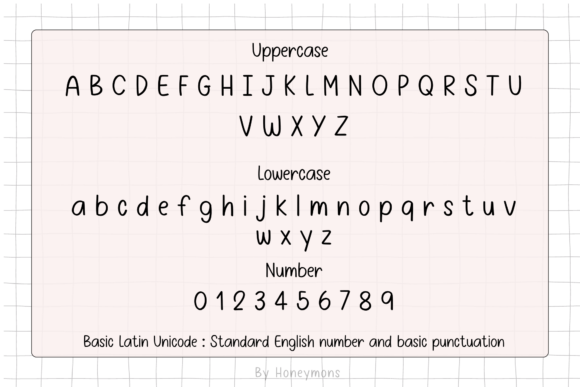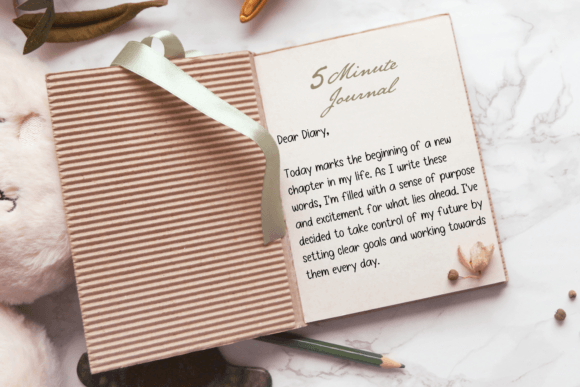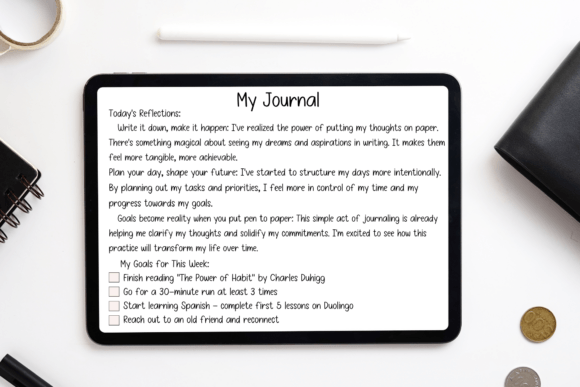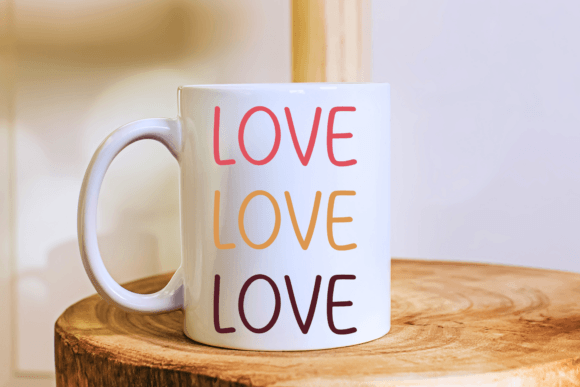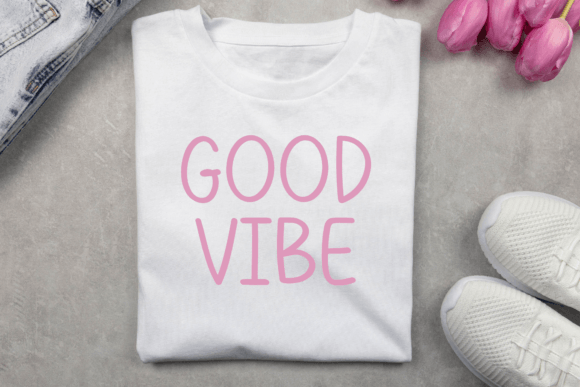
Unleash Your Personal Style with Friday Font
As I sat at my desk on a Friday afternoon, struggling to meet a looming deadline, I had an epiphany. I needed to break free from the monotony of corporate typography and inject some personality into my design. That’s when I stumbled upon Daisy Memo, a charming handwritten font that would change the way I approach my creative projects.
Friday Font, or should I say, Daisy Memo, is more than just a font – it’s a way to connect with your audience on a personal level. With its minimal yet expressive design, it’s the perfect tool for adding a warm, human element to your projects. Whether you’re a seasoned designer or just starting out, this versatile font is sure to elevate your designs and make them stand out from the crowd.
Friday Font Key Features
- Font Family: Friday Font is a sans-serif typeface designed for digital use.
- Unique Characteristics: Friday Font features a geometric and modern design with a high x-height, making it suitable for body text and headlines.
Friday Font Review
As a designer, I’ve had the chance to work with a wide variety of fonts, and the “Friday Font” is one that caught my attention. Overall, I think it’s a great addition to any designer’s toolkit.
- Unique aesthetic: The “Friday Font” has a distinct, laid-back feel that’s perfect for casual designs, such as blogs, social media graphics, or even branding for a relaxed company.
- Legibility: Despite its quirky appearance, the font is surprisingly easy to read, making it suitable for body text and even headings.
- Customization options: The font comes in a range of weights and styles, allowing designers to experiment with different looks and feels.
- Limited elegance: While the font is great for casual designs, it may not be the best choice for more formal or sophisticated projects.
- Lack of serif options: If you’re working on a project that requires a serif font, you may need to look elsewhere.
Overall, I think the “Friday Font” is a solid choice for designers looking for a unique, laid-back font. While it may not be the best fit for every project, it’s definitely worth considering for casual designs and branding.
Tips for Getting the Most Out of “Friday Font”
Use “Friday Font” to add a fun and playful touch to your designs.
Combine it with bold colors and creative graphics for a unique visual effect.
Experiment with different font sizes and styles to create a dynamic look.
Use “Friday Font” for:
social media posts and ads
flyers and posters
business cards and brochures
web design and branding